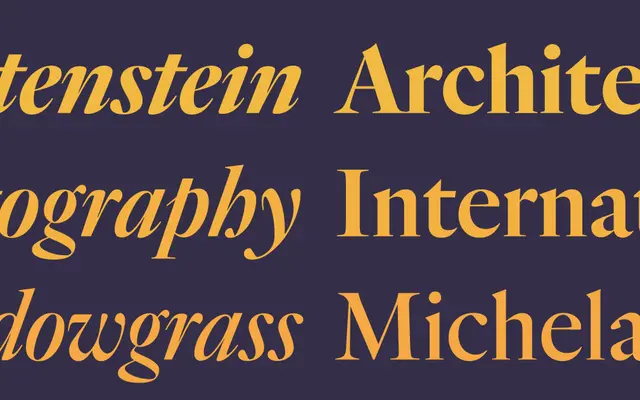
Quarto
Hoefler & Co · Jonathan Hoefler · 2009
A Dutch Baroque display serif after Van den Keere, drawn for headlines that want dark colour, crisp serifs and controlled contrast.
A display serif by Jonathan Hoefler based on Hendrik van den Keere's Two-Line Double Pica Roman of 1570 to 1573, designed for use at sixteen point and above. Quarto runs across multiple weights with italics, with consistently dark vertical strokes offset by bright, crisp serifs and moments of lavish roundness. Its large x-height, short descenders and trim serifs invite tight tracking and solid leading, and the italics balance fluid motion against a steadfast rhythm. Reach for it on editorial mastheads, book jackets and headline systems that want a Baroque voice without slipping into pastiche.
H&Co describe Quarto as a modern adaptation of Hendrik van den Keere's Two-Line Double Pica Roman of 1570 to 1573, intended for use at sixteen point and above. They position it as a fiery display face in the Dutch taste, drawn for controlled contrast.